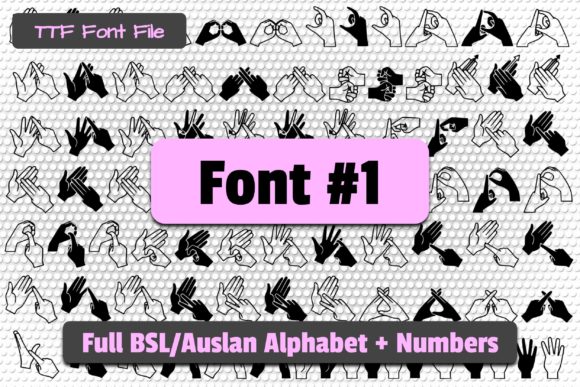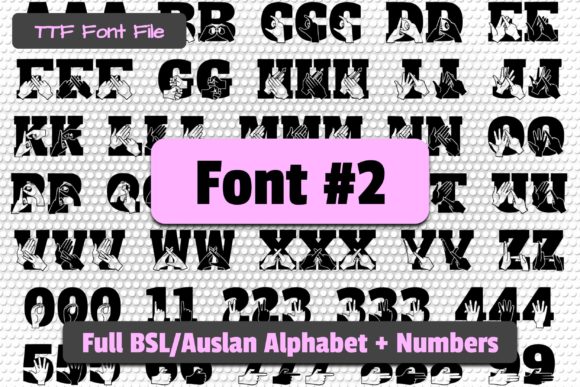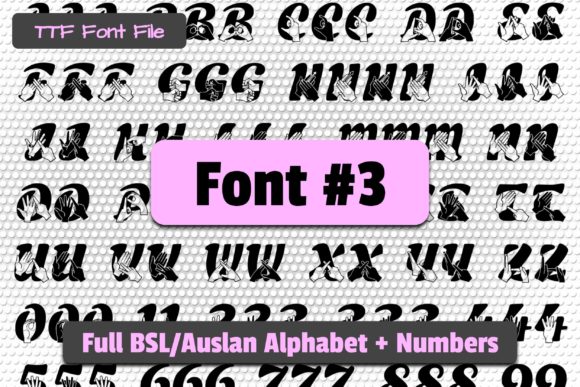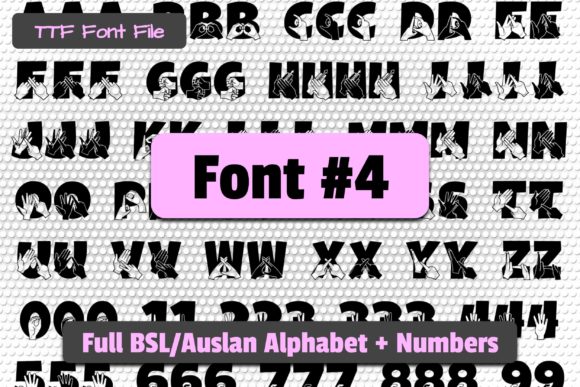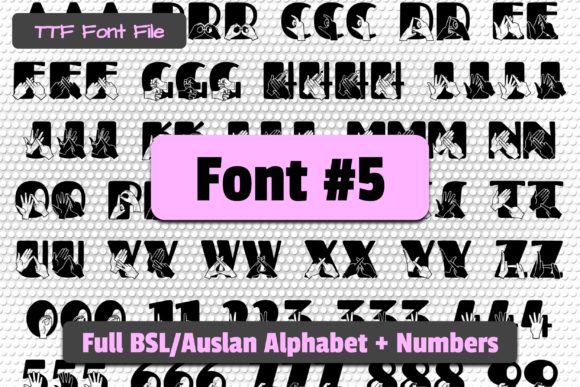
Bring Sign Language to Your Designs
Have you ever been stuck trying to find the perfect font for your project? You scroll through hundreds of options, but nothing seems to capture the essence of your idea. I know the feeling! It was during one such moment that I stumbled upon the Able Lingo BSL 1-5 Font, and my creative world changed forever.
The Able Lingo BSL 1-5 Font is a beautiful decorative font bundle inspired by the British Sign Language. With its unique and captivating characters, it’s the perfect addition to any design project. Whether you’re a graphic designer, a writer, or a social media enthusiast, this font is sure to elevate your work and make it stand out.
What sets the Able Lingo BSL 1-5 Font apart is its versatility and value for designers. With five levels of complexity, you can choose the perfect style to suit your needs, from simple and elegant to bold and eye-catching. This font bundle is a game-changer for anyone looking to add a touch of creativity and authenticity to their work.
- Unique Characteristics: The Able Lingo BSL 1-5 Font is specifically designed for British Sign Language (BSL) and includes a unique set of characters and symbols to represent BSL signs.
- Character Set: The font includes a comprehensive set of characters, including uppercase and lowercase letters, numbers, punctuation, and BSL-specific signs.
Able Lingo BSL 1-5 Font Review
As a designer, I was excited to dive into the Able Lingo BSL 1-5 Font, hoping to find a solution for creating visually appealing and accessible content for the Deaf and hard of hearing communities. Overall, I have mixed feelings about this font.
- The font does an excellent job of replicating the Manual Alphabet (also known as British Sign Language Finger Spelling), which is a crucial aspect of BSL.
- The font is highly legible and easy to read, even at small font sizes.
- The font supports a wide range of characters, including the 1-5 fingerspelling.
- The font is not a full-fledged BSL font, but rather a collection of characters and symbols used in BSL.
- The font does not include any contextual information or guidelines for proper usage, which can lead to misinterpretation.
- The font may not be suitable for long-form content, as it can become visually overwhelming.
Overall, the Able Lingo BSL 1-5 Font is a useful tool for designers and content creators looking to incorporate BSL into their work. However, it’s essential to understand its limitations and use it in conjunction with other resources and guidelines to ensure accurate and respectful representation of BSL.